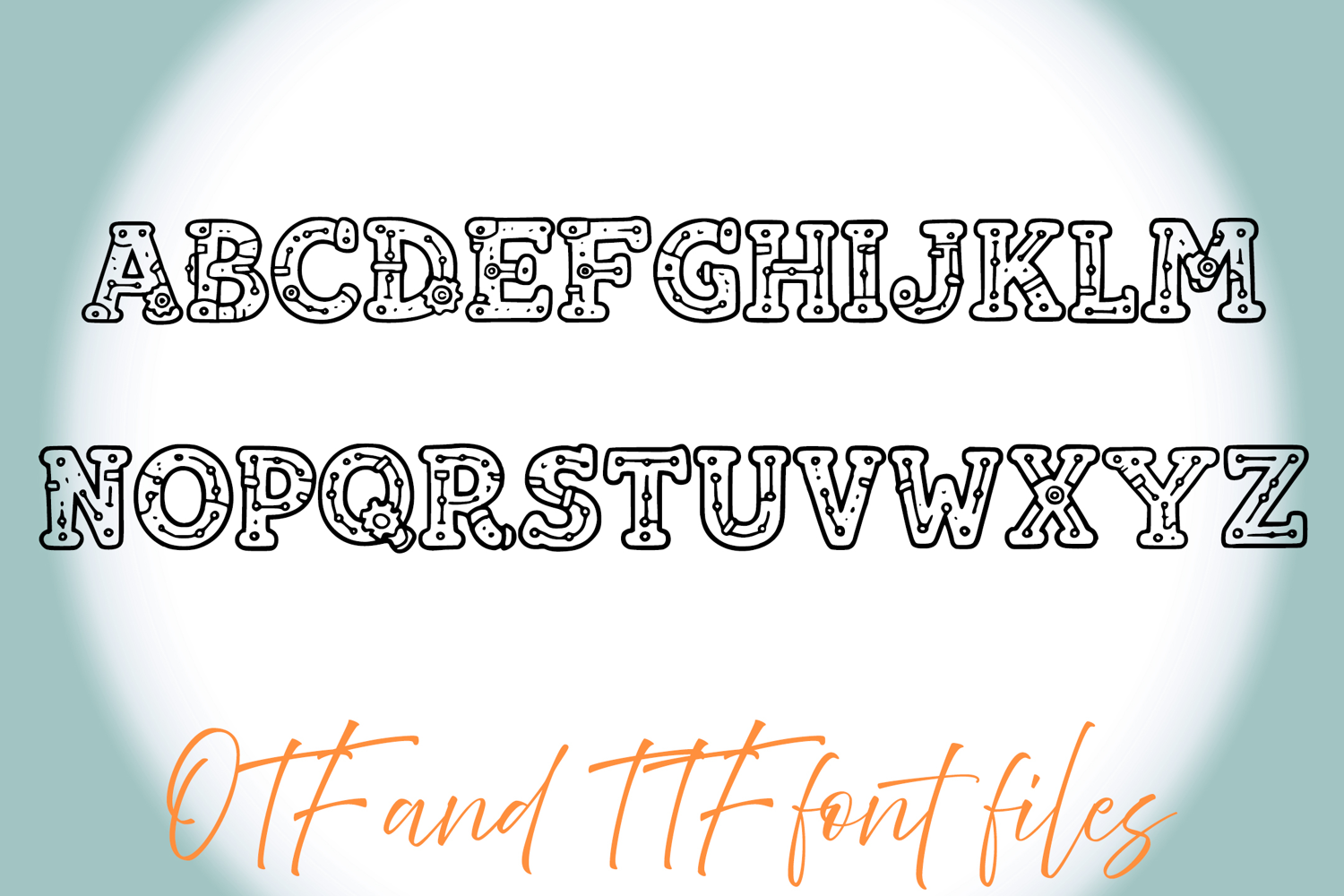
Steampunk Robot Lettering ABC Text Font Alphabet OTF Type Illustration
A fun style font where you can create your own words and colour them to your vision!